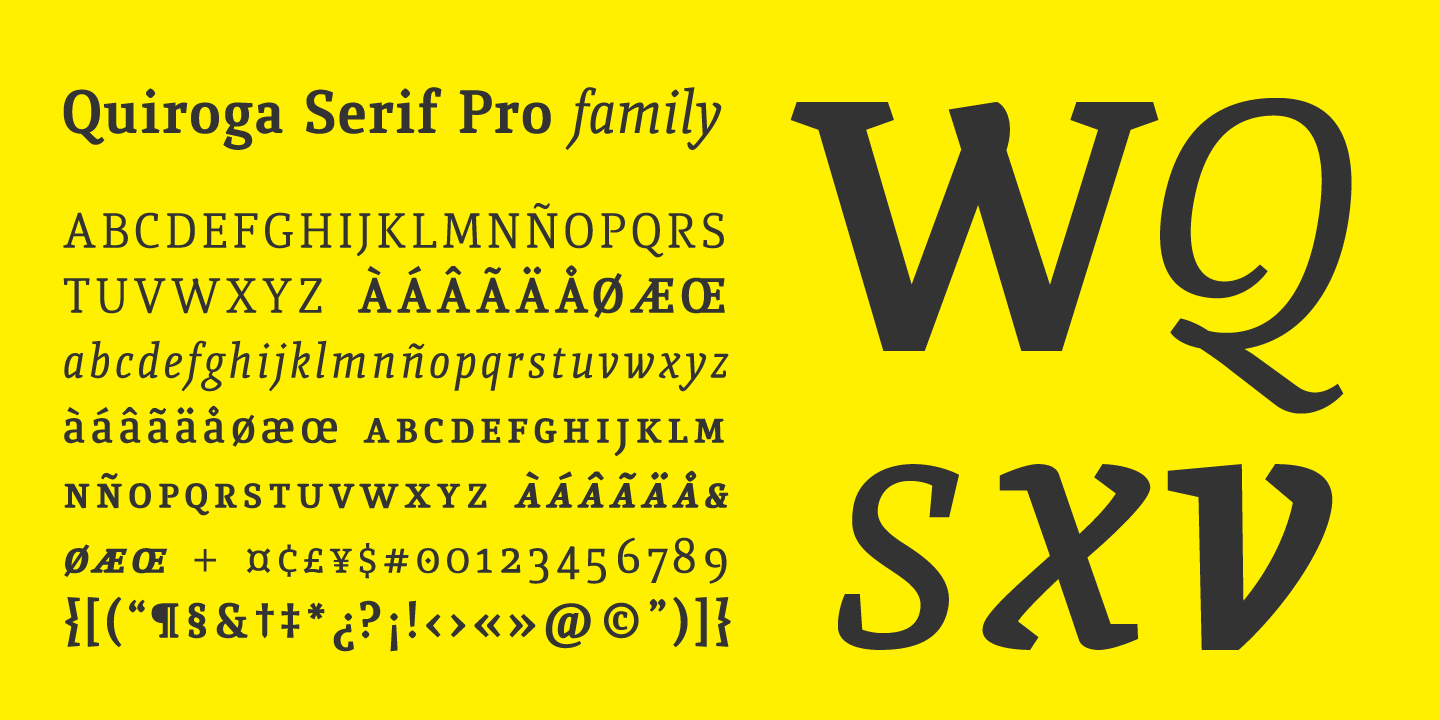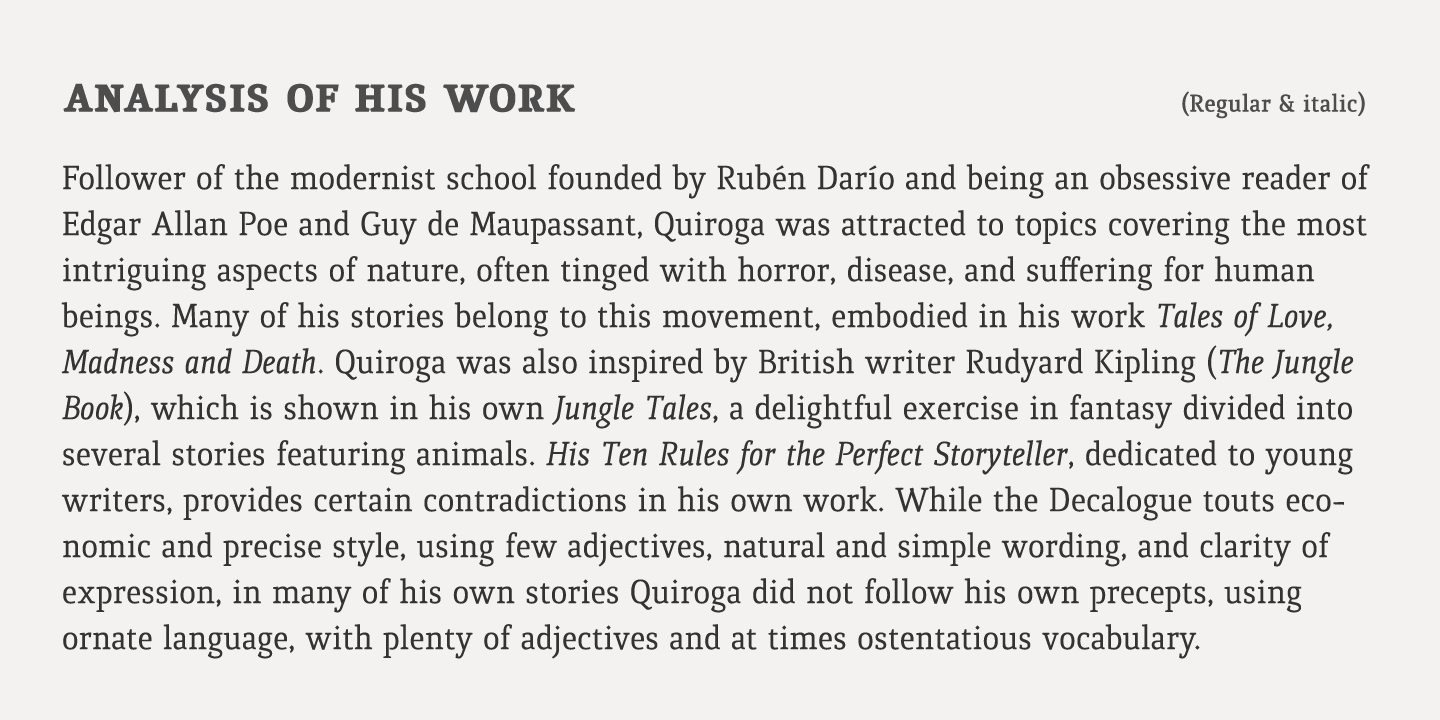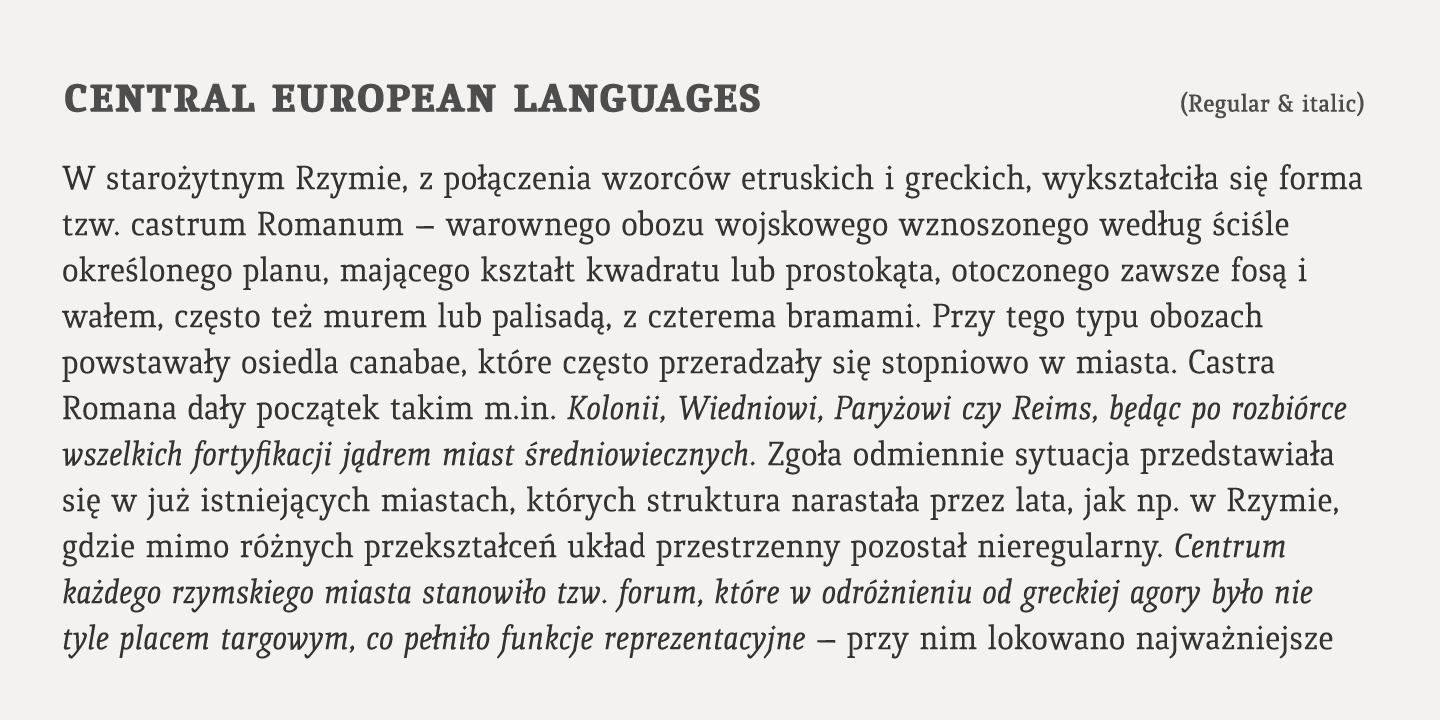
About Quiroga Serif Pro
Quiroga Serif began in 2007 with the name Quadratta Serif. This typography was designed for continuous text, legible at medium and small sizes, with great saving of space, optimized for 6, 8, 10 and 12 points. The morphology is a mix between tradition…